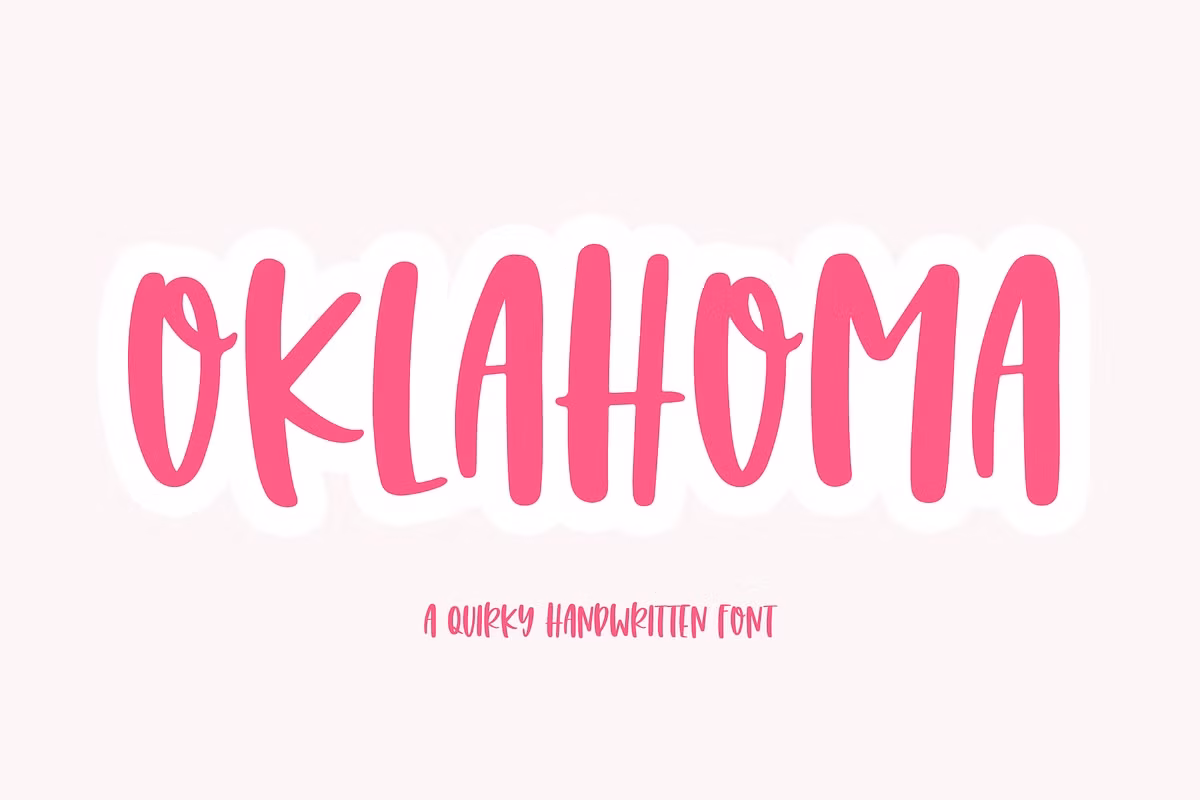
Add a dash of charm and a whole lot of personality with Oklahoma Quirky Handwritten Font Free Download — a fun and playful typeface that’s full of character. With its offbeat curves and casual handwriting style, this font is perfect for greeting cards, creative branding, planner stickers, social media graphics, and anything that needs a little whimsy.
Oklahoma doesn’t take itself too seriously — and that’s its magic. The font includes uppercase and lowercase letters, punctuation, numbers, and multilingual support, giving you the tools to create lighthearted and eye-catching designs with ease.